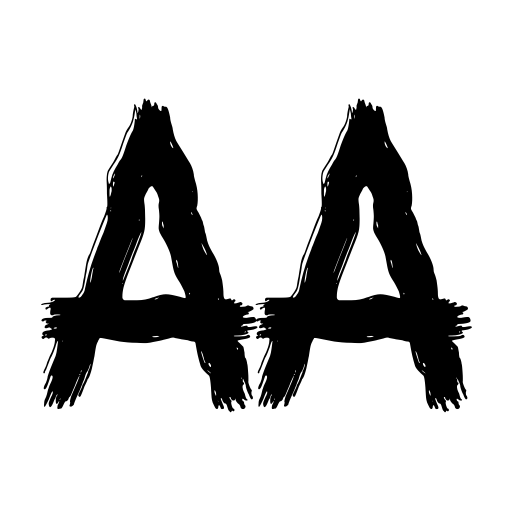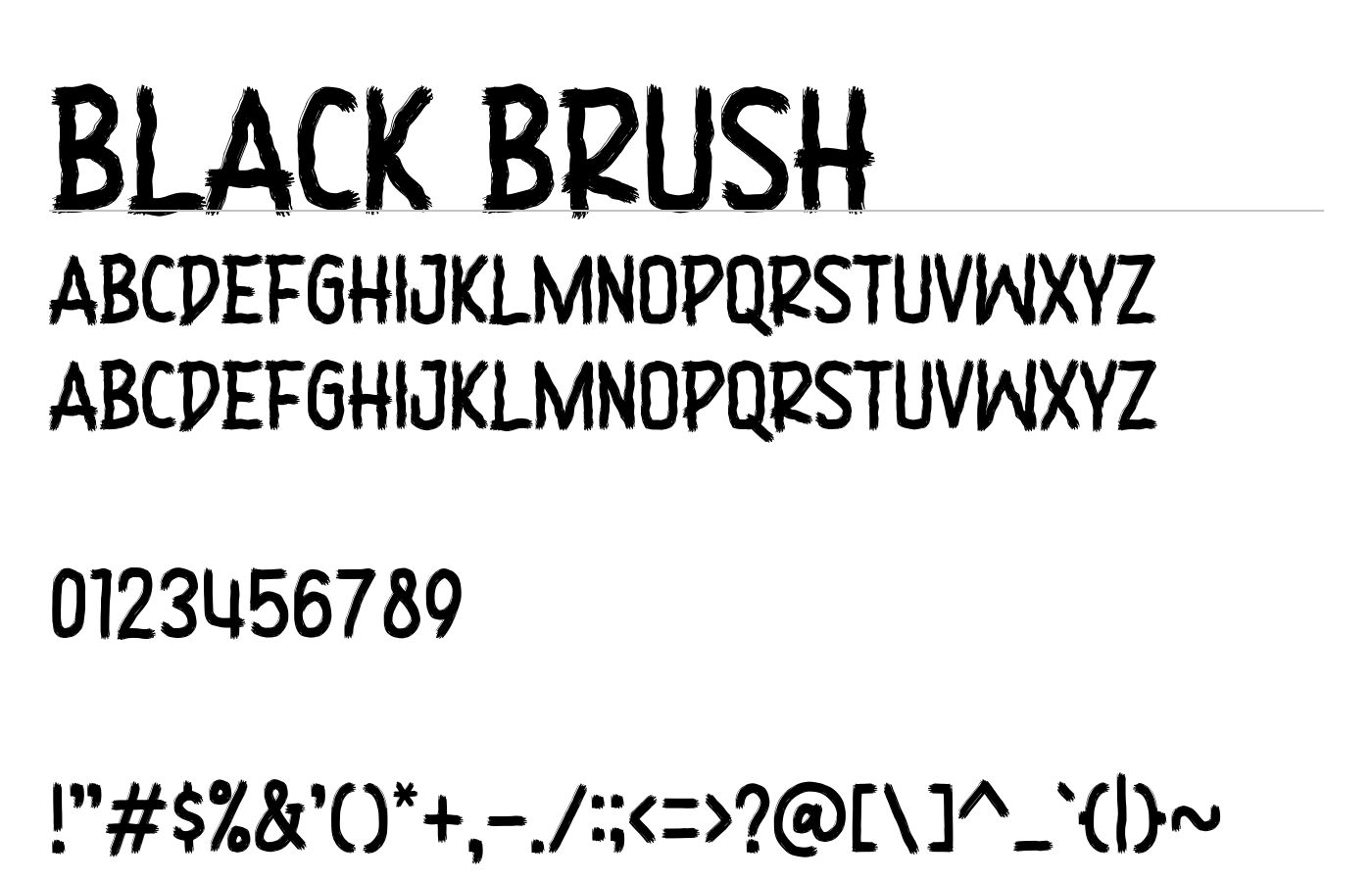
Black Brush is a bold, hand-painted sans serif font with a rough, textured appearance that mimics broad brush strokes. Its all-uppercase characters exhibit irregular edges and a slightly narrow width, giving it an energetic and raw feel that is perfect for eye-catching headlines, creative logos, and edgy packaging. This font conveys a playful yet strong personality, making it ideal for artistic projects and modern, informal branding.
Black Brush Font
About Black Brush Font